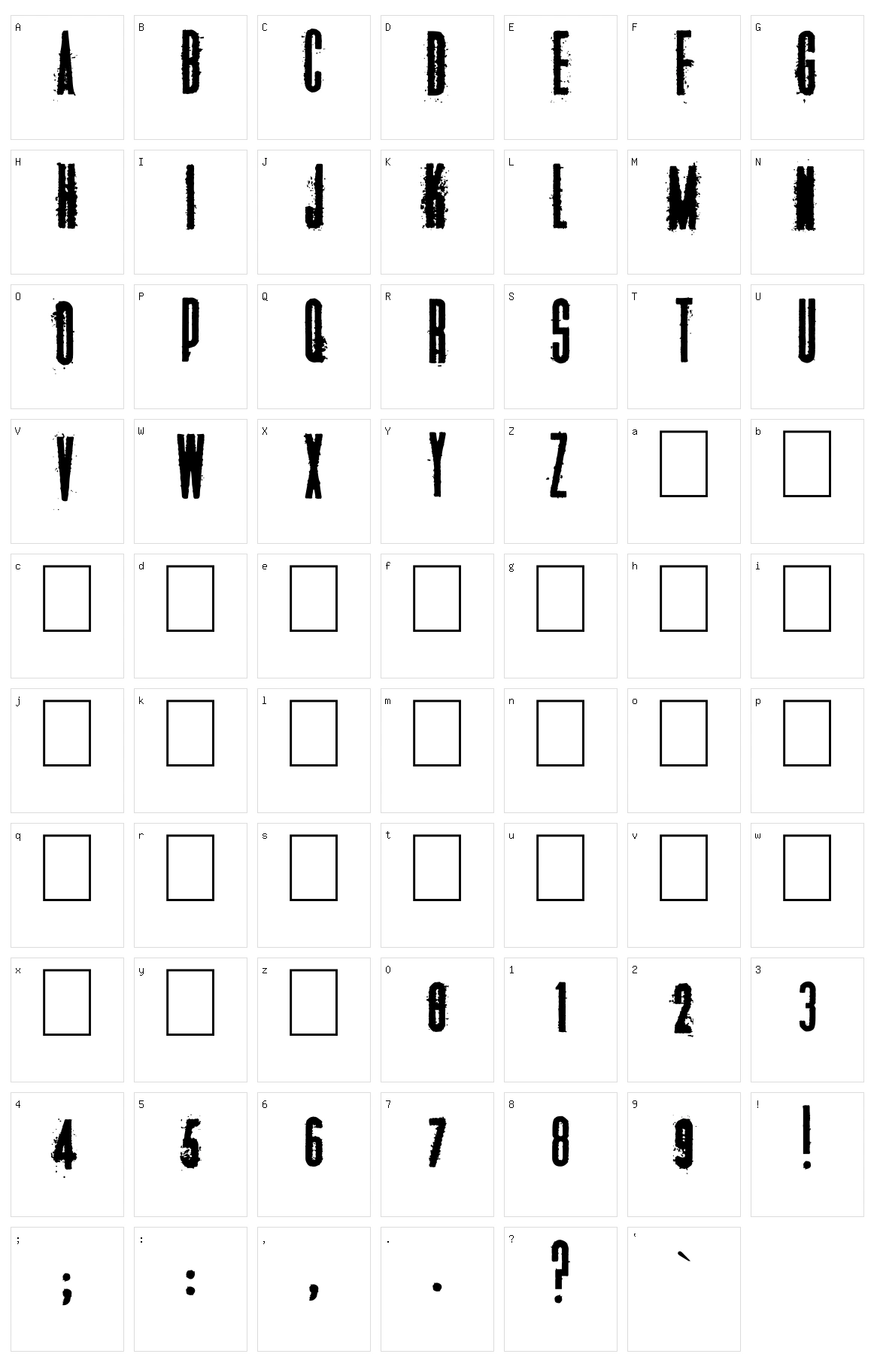
The free font Manifesto is carefully designed by imagex, showcasing a thoughtful balance of creativity and usability and falls under the Destroy font style. When you download the ZIP file, it contains only 20.43 KB of font files, making it lightweight and quick to download. Please review the license details below to understand permitted usage and distribution rights. If license information is not available, we recommend using this font for personal projects only or contacting the author directly for commercial usage permissions.